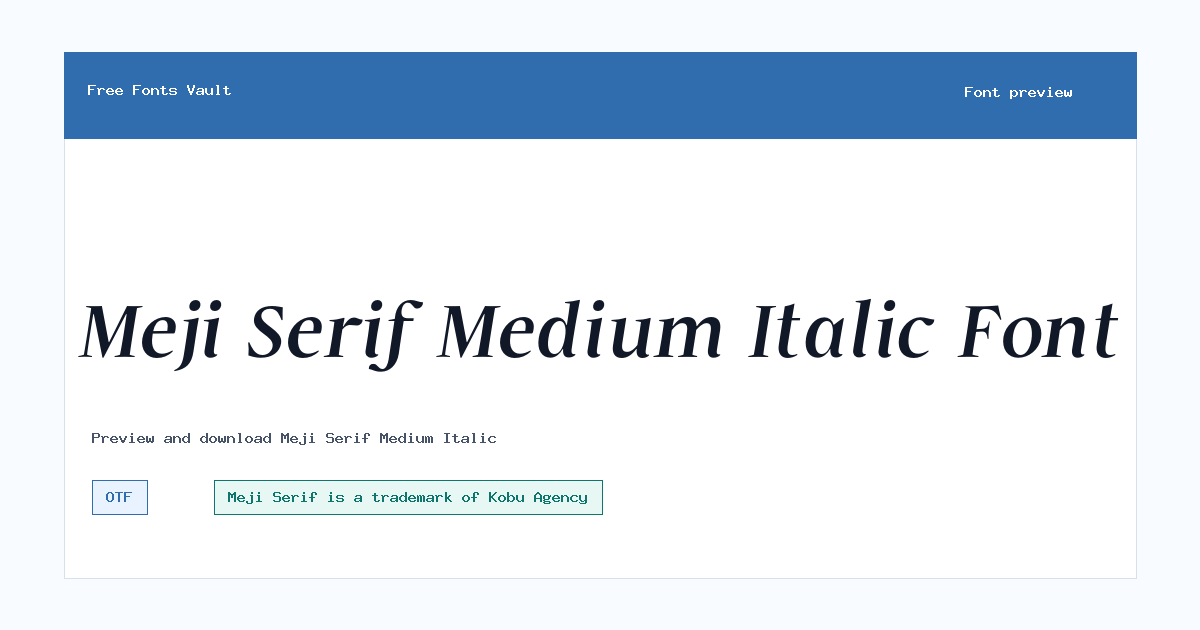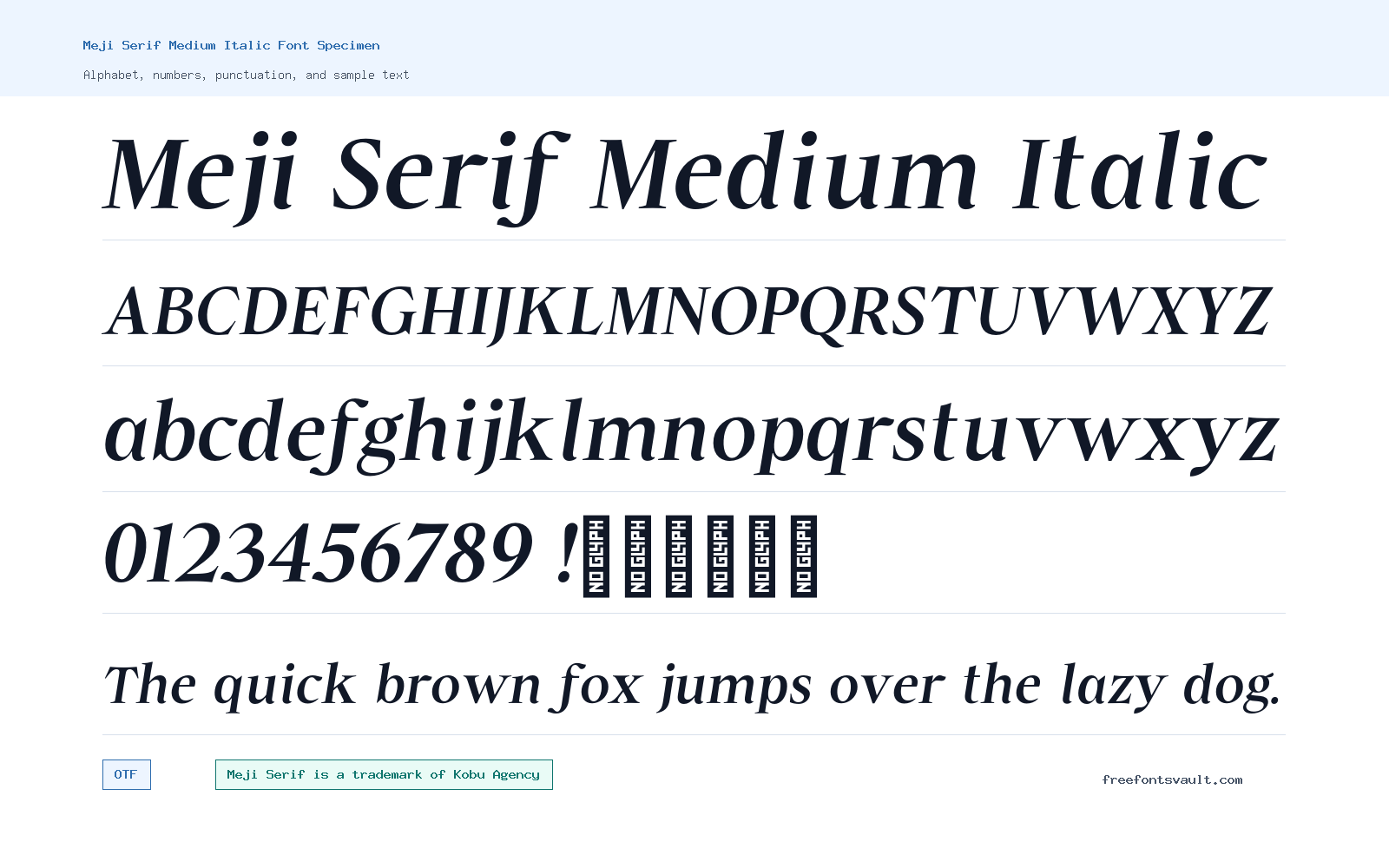
Meji Serif Medium Italic
- Designer Brígida Guerreiro
- Foundry KOBU™ Agency
Meji Serif Medium Italic font.
Meji Serif Medium Italic is an italic serif font with a medium weight, useful when you want text to feel more refined than a standard roman style without becoming too heavy on the page.
About Meji Serif Medium Italic
Meji Serif Medium Italic comes as an OTF font file with an italic style and a 500 weight. That makes it a good candidate for display text, short editorial lines, pull quotes, image captions, and brand-style mockups where a slanted serif voice fits the design. Because it is an italic cut, it will usually work best as an accent rather than as the main typeface for long paragraphs.
Use the preview box to test the exact words you plan to set, especially names, titles, punctuation, numbers, and mixed-case phrases. Italic serif fonts can look elegant at larger sizes, but spacing and readability may change quickly in small text. Try it in short headings, subheads, invitations, social graphics, and quote layouts before deciding whether it fits your project.
- Italic serif style with medium 500 weight
- Better suited to short display text than dense body copy
- Useful for testing refined titles, captions, quotes, and editorial accents
- Editorial headlines and magazine-style titles
- Pull quotes, captions, and short emphasis text
- Invitation mockups, stationery previews, and elegant social posts
- Brand concept boards where an italic serif accent is needed
Meji Serif Medium Italic is credited to Brígida Guerreiro, with KOBU™ Agency listed as the foundry.
For best results, test this font at the size you plan to use. Keep it to short text if the italic angle reduces readability. Pair it with a plain sans serif or a calm roman serif for body copy so the italic style remains clear and intentional.
What kind of font is Meji Serif Medium Italic?
It is an italic serif font in OTF format with a medium 500 weight.
Who designed Meji Serif Medium Italic?
The font is credited to Brígida Guerreiro, with KOBU™ Agency listed as the foundry.
Is Meji Serif Medium Italic good for body text?
It may be better for short text and emphasis. For long reading, pair it with a simpler body font and use Meji Serif Medium Italic for headings, quotes, or accent lines.